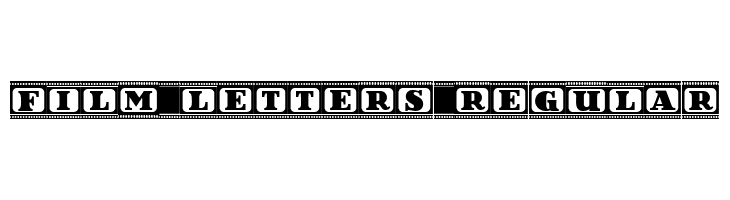
A bold, cinematic font with characters framed in film strips, ideal for movie-themed designs.
A bold, cinematic font with characters enclosed in filmstrip frames.